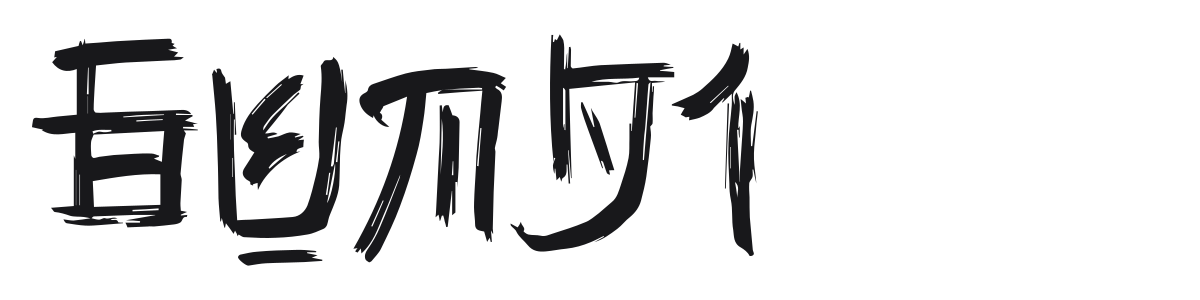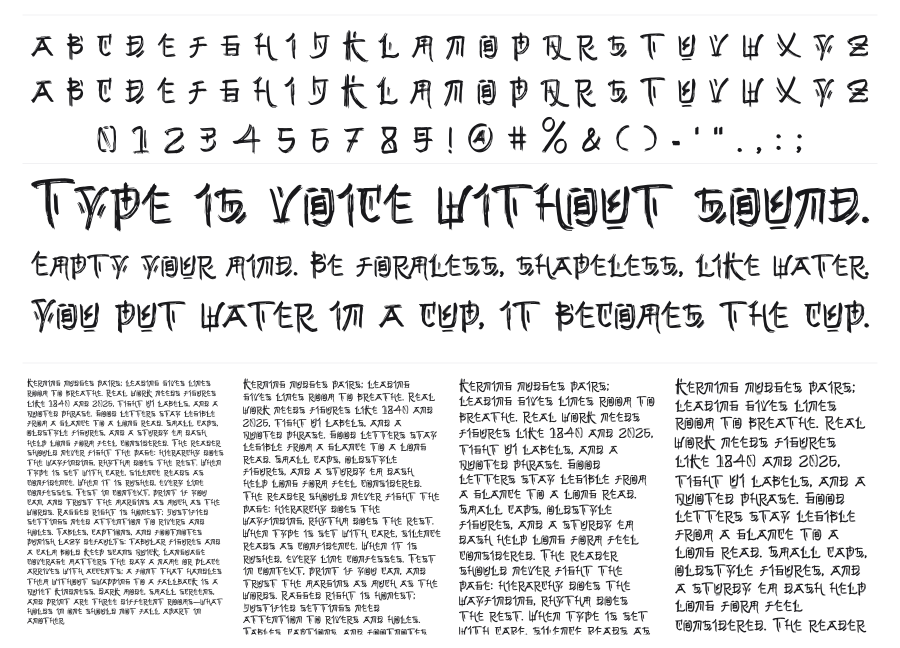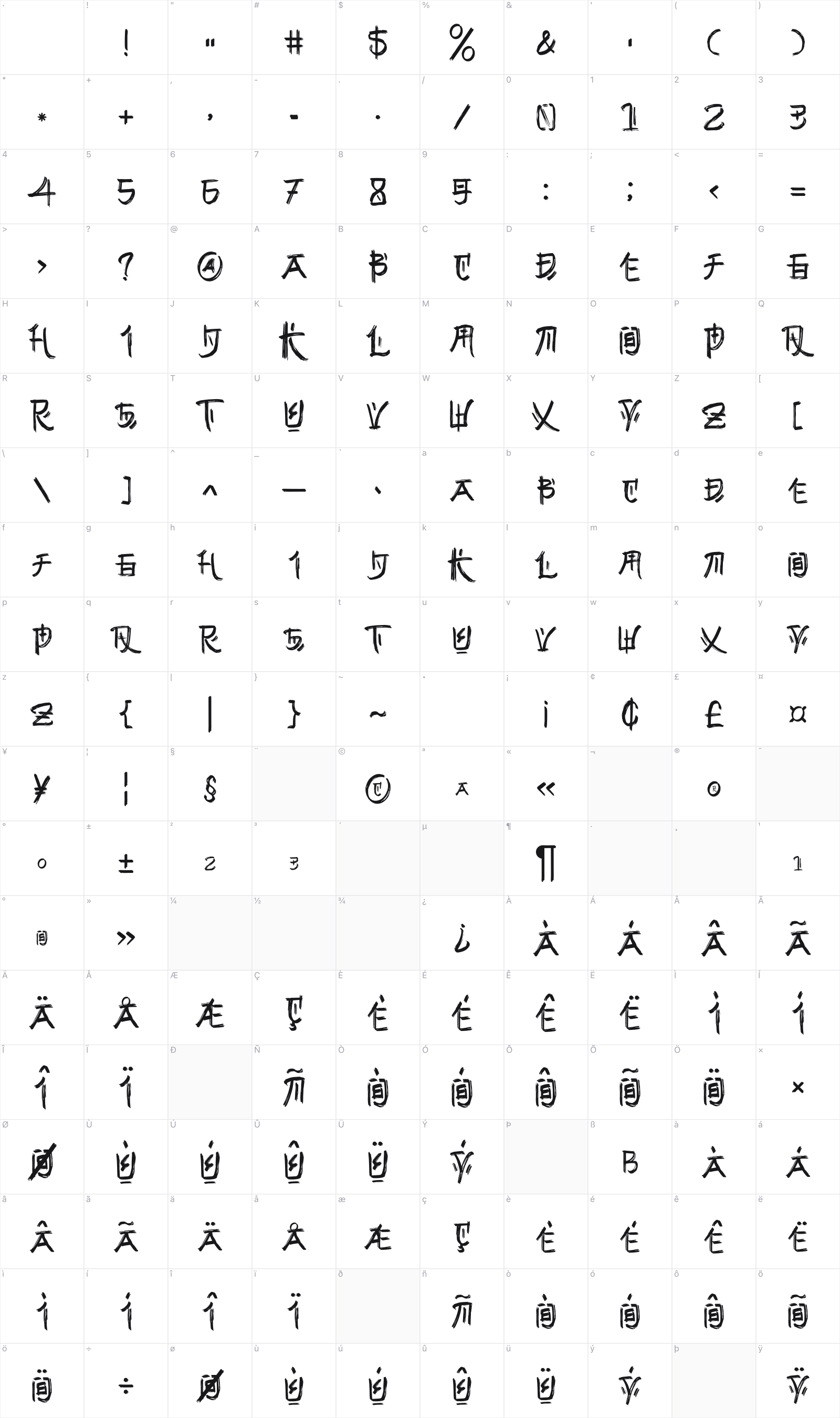
Gunji
Gunji is a Chinese brush-inspired display font that reimagines Latin letters through the structural logic of East Asian calligraphy. The heavy, angular strokes carry visible ink texture and deliberate roughness, giving each character a raw, handcrafted energy. Strong at large sizes for restaurant branding, apparel graphics, and editorial headlines with a cultural edge.